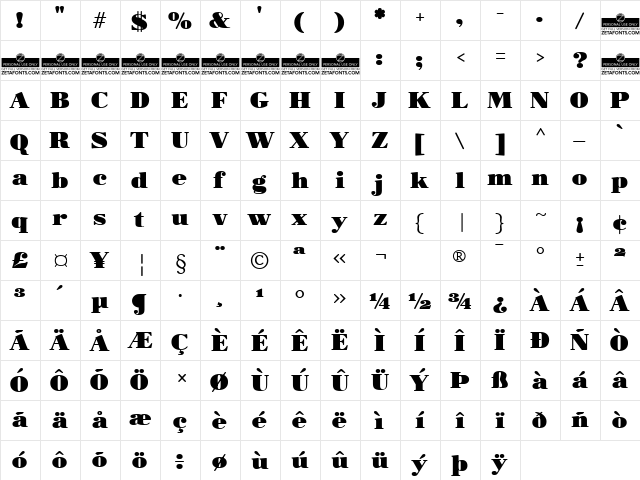
Morbodoni Regular
| Foundry | Studio Kmzero |
| Designer | Cosimo Lorenzo Pancini and Francesco Canovaro |
Design Context for Morbodoni Typeface
Morbodoni is a composed and adaptable typeface that performs quietly and consistently across a wide range of design contexts.